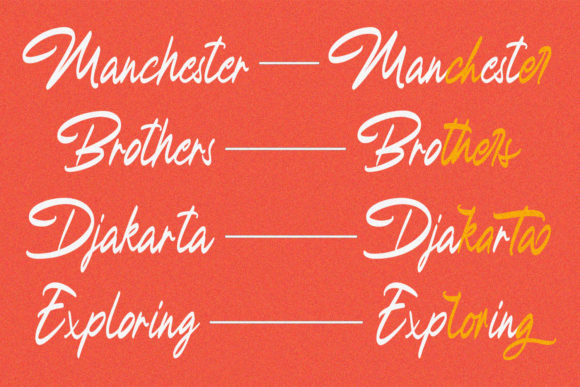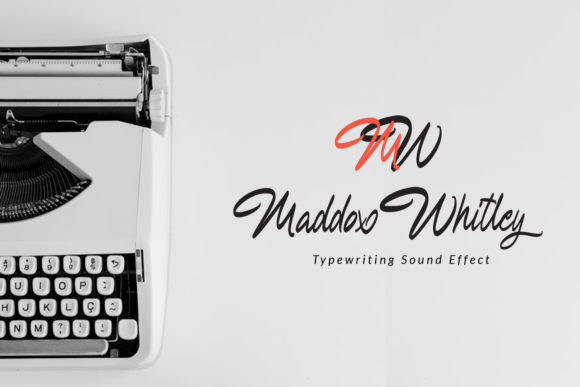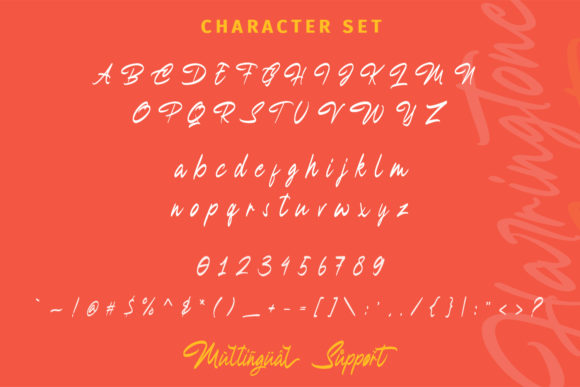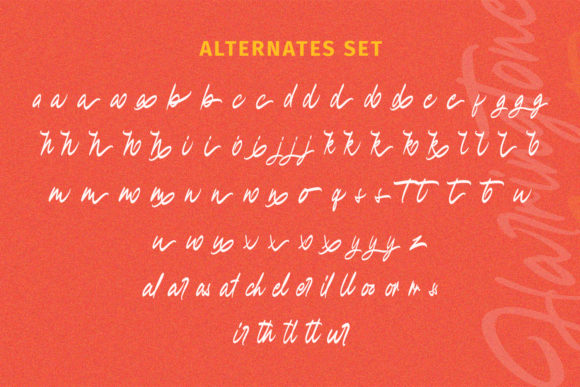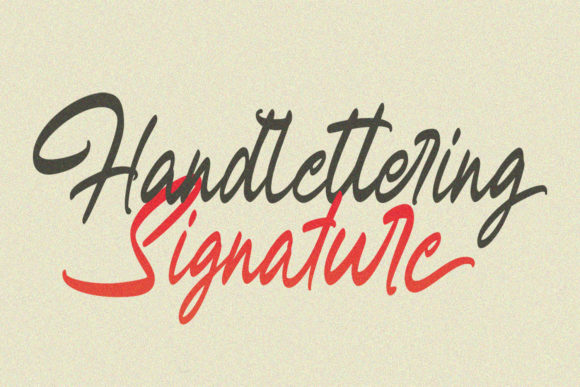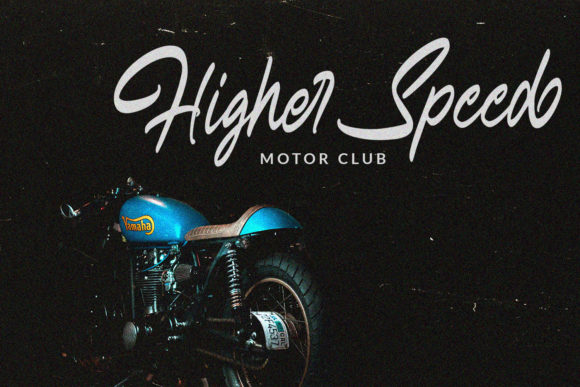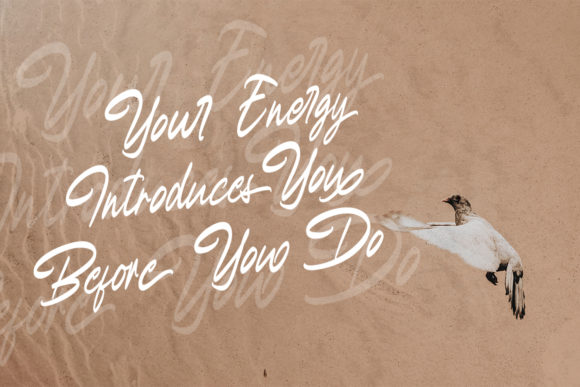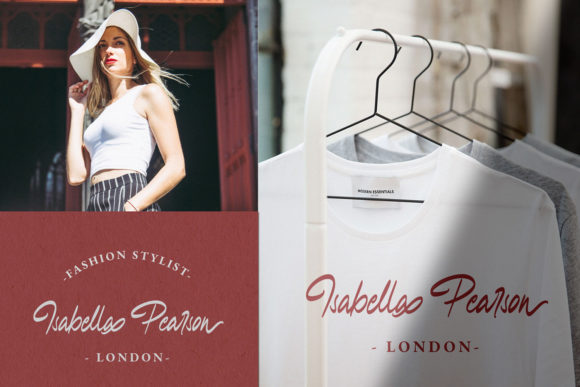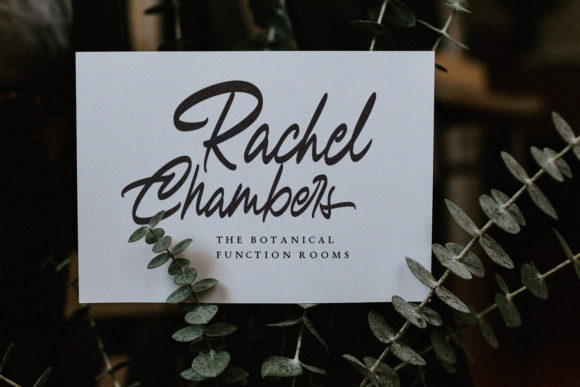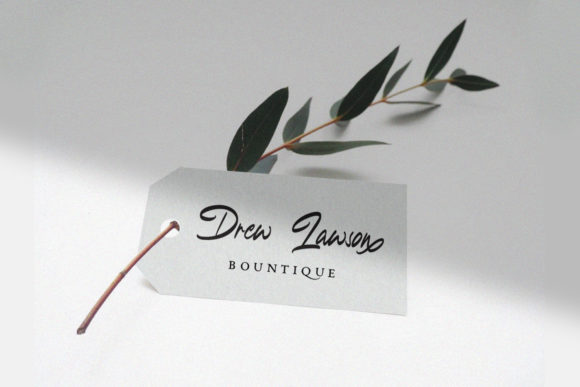
Harringtone Script Font
About Harringtone Script Font
Harringtone is a fun and bold handwritten font with a lot of authentic charm! Fall in love with its striking feel.